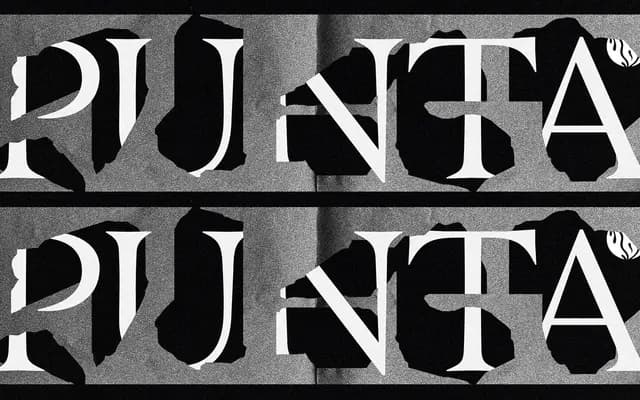
A five-weight humanist sans from Hot Type with matching italics across the full range, priced at €70 per style.
Ten styles span Light through Black with corresponding italics, giving the family enough range for both text and display work. The specimen demonstrates readability at small sizes alongside strong presence at headline scales. At €700 for the complete family, it sits at a mid-market price point for a single-script release.
The letterforms visible in the specimen suggest a humanist sans with warm, pen-influenced proportions suited to both text and display settings across a wide weight range.